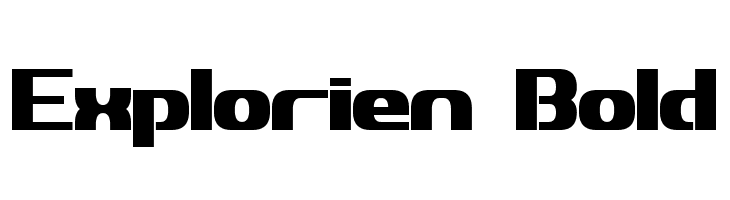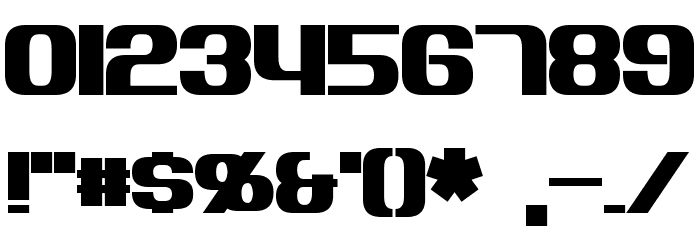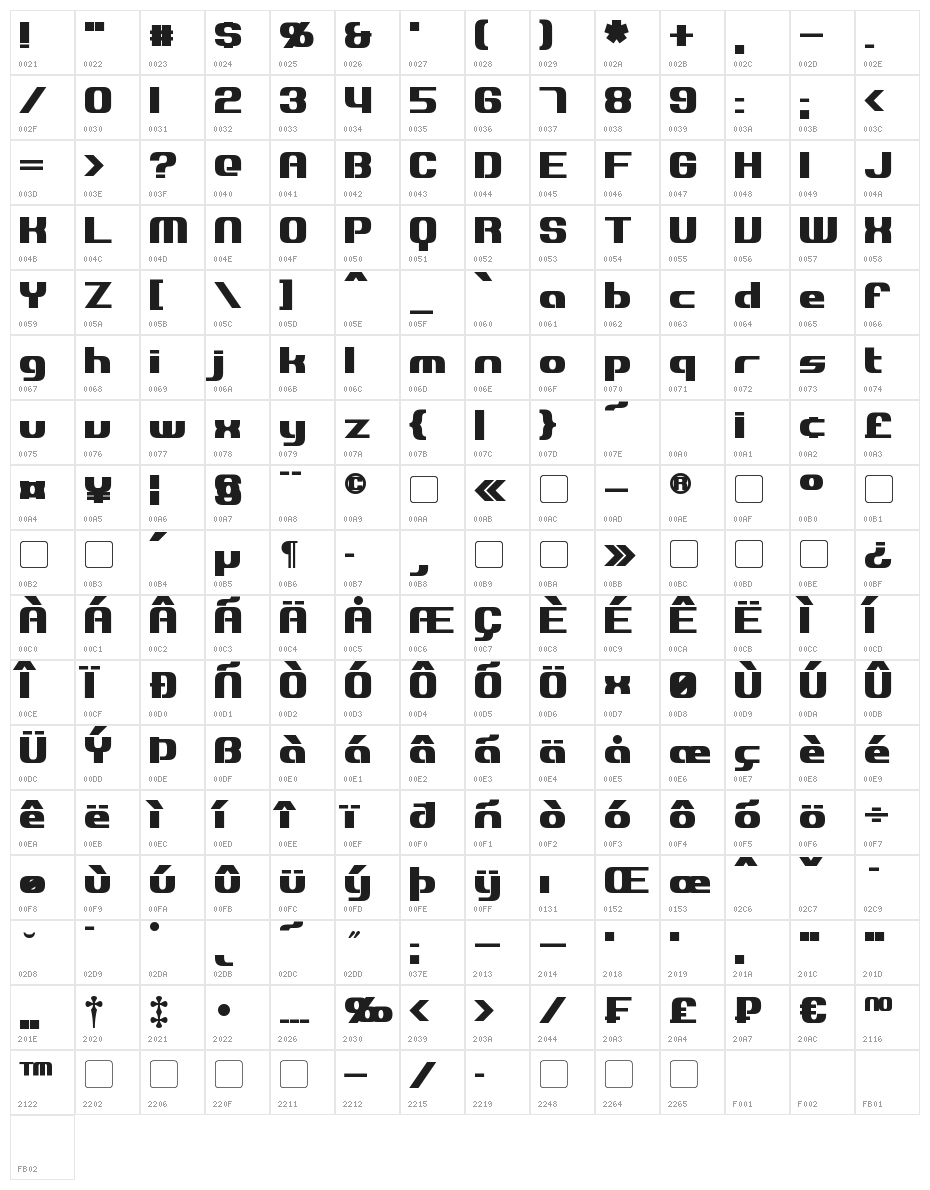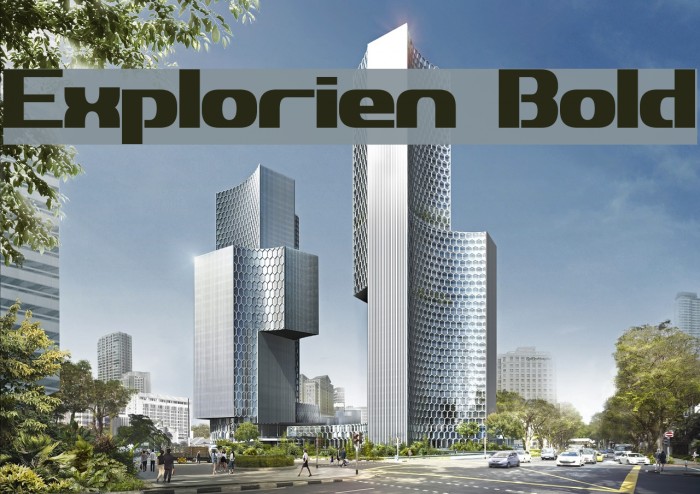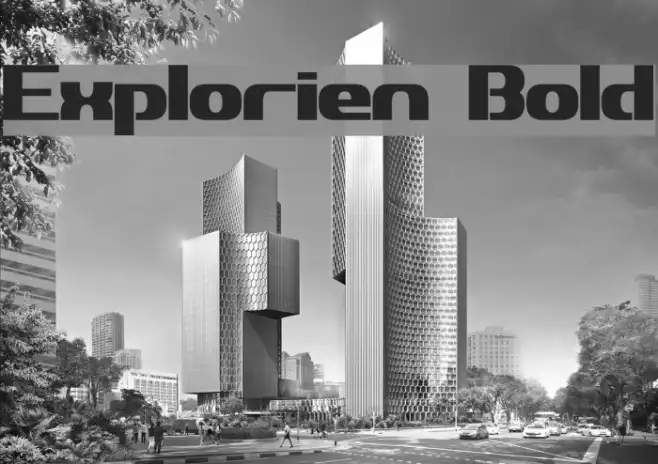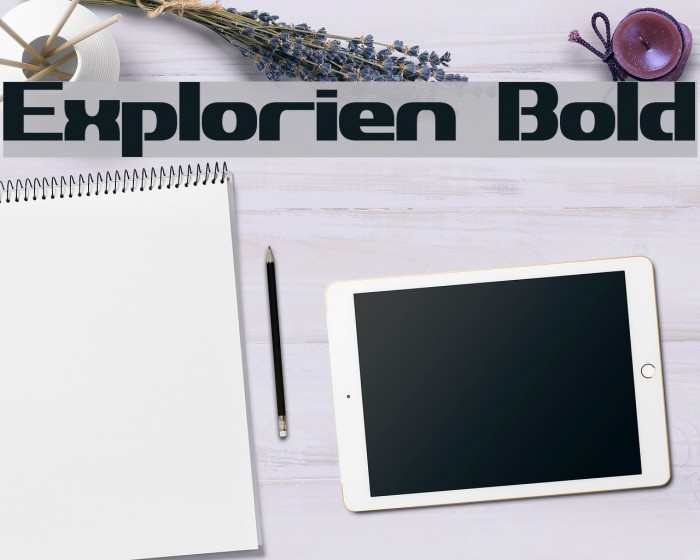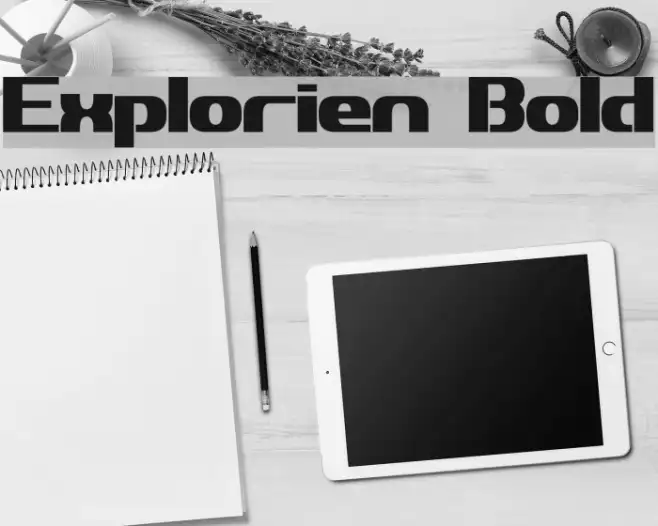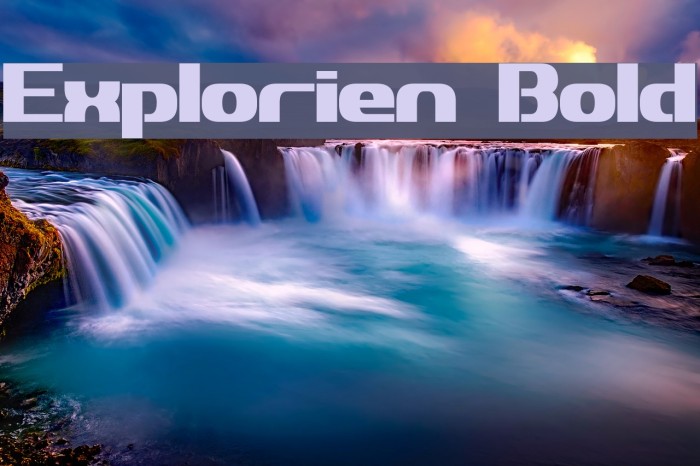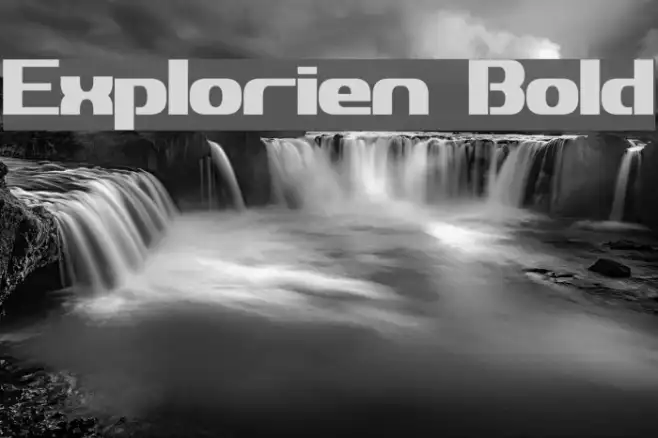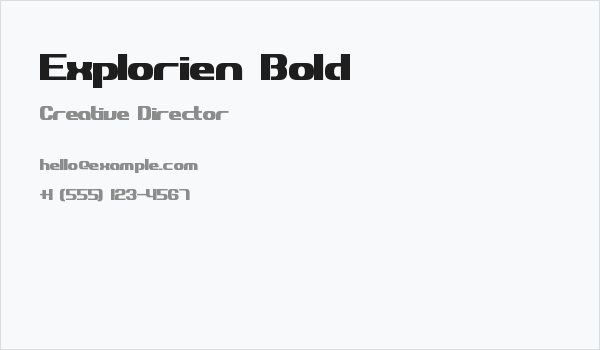
Explorien Bold Font
Explorien Bold Description
This font features a bold and striking design with a modern, geometric aesthetic. The characters are wide and have a strong presence, making them ideal for attention-grabbing headlines. The uppercase letters are particularly robust, with a uniform thickness that conveys strength and stability. The lowercase letters maintain the boldness while offering a slightly softer edge, providing a nice contrast. Numbers and special characters are equally bold, ensuring consistency across all text elements. The overall style is contemporary and dynamic, suitable for modern design projects.